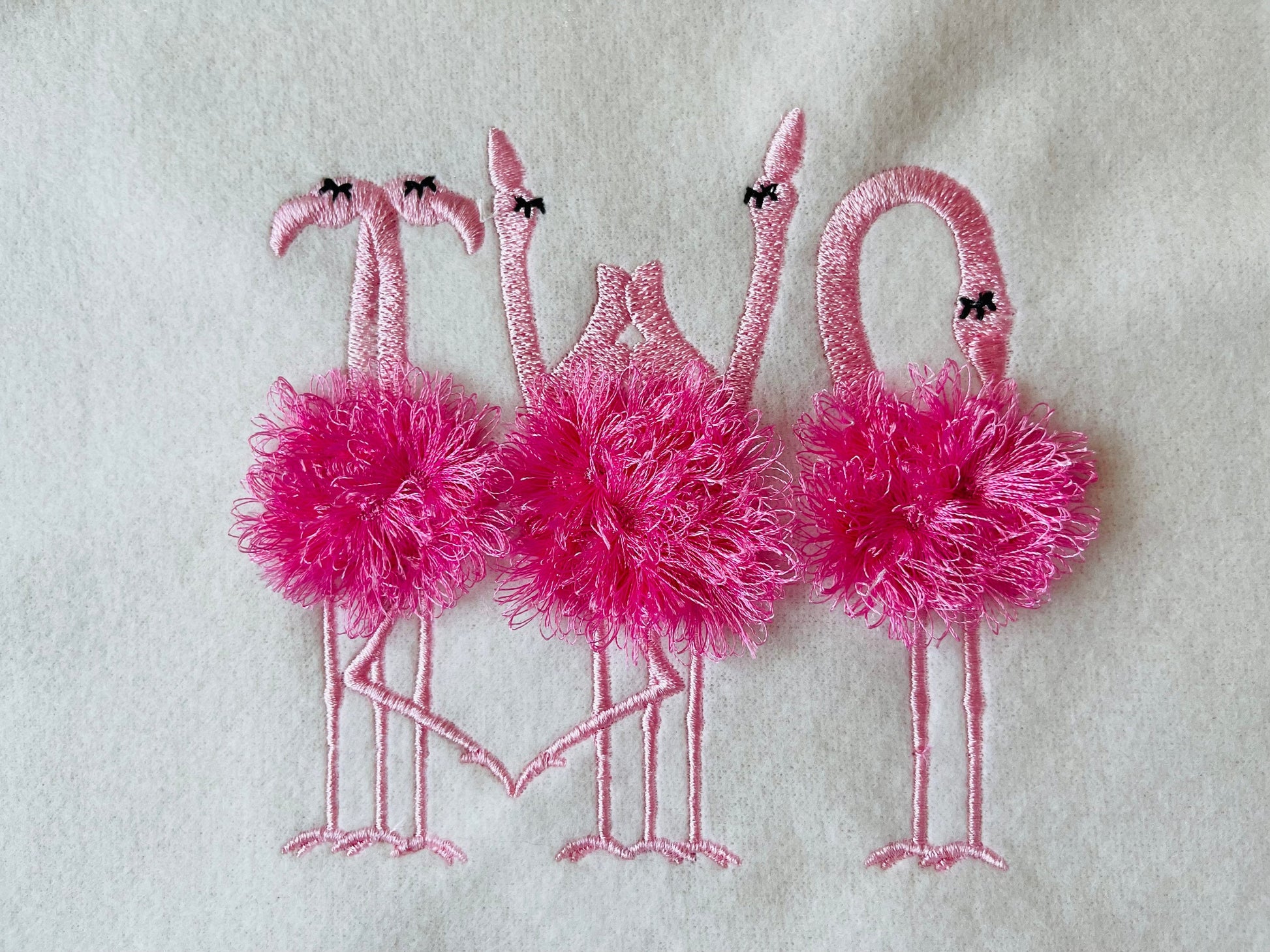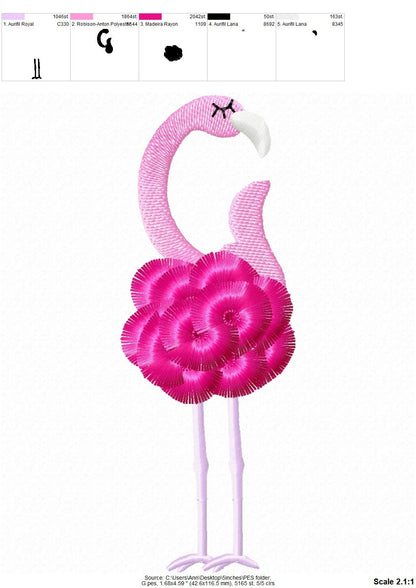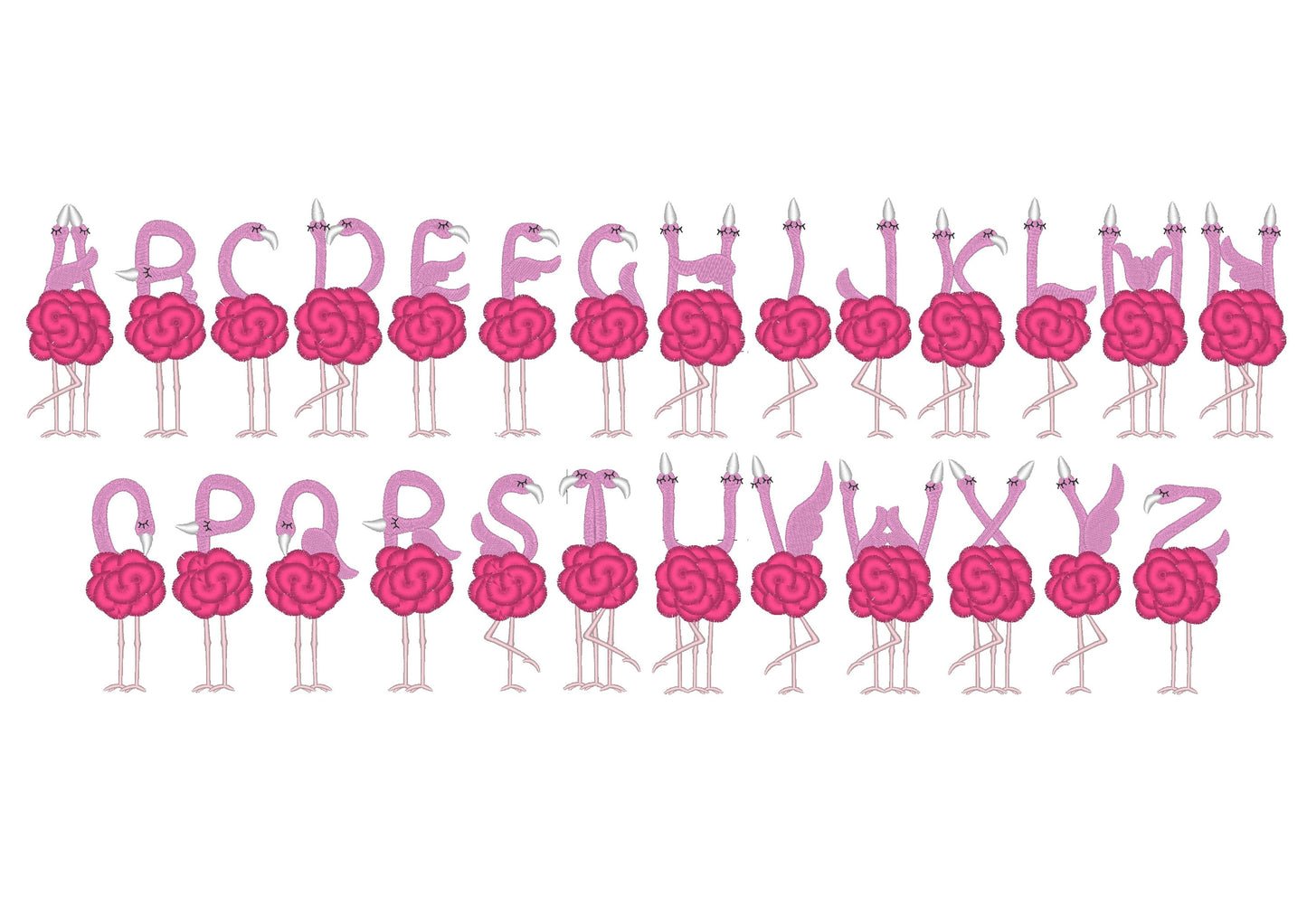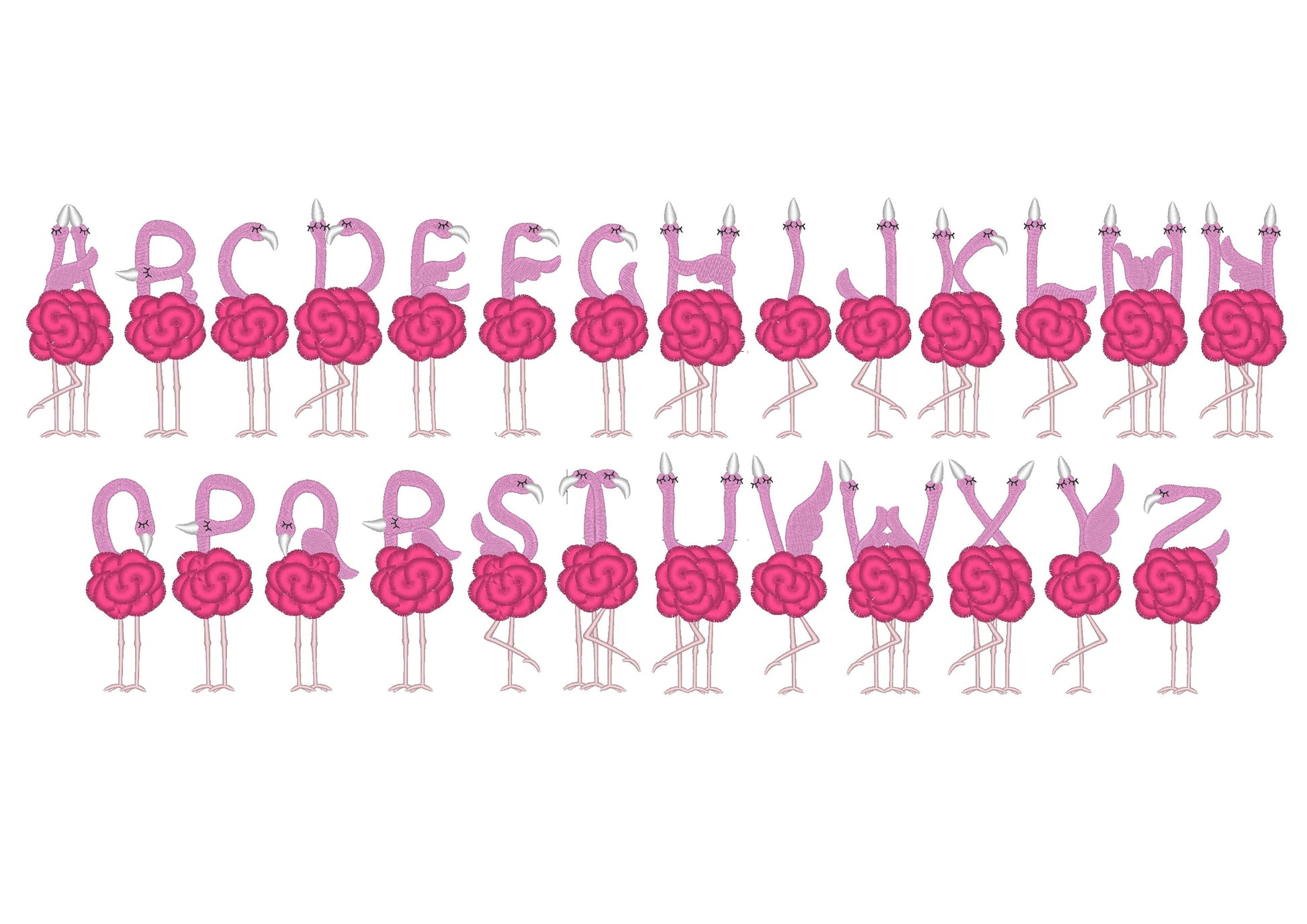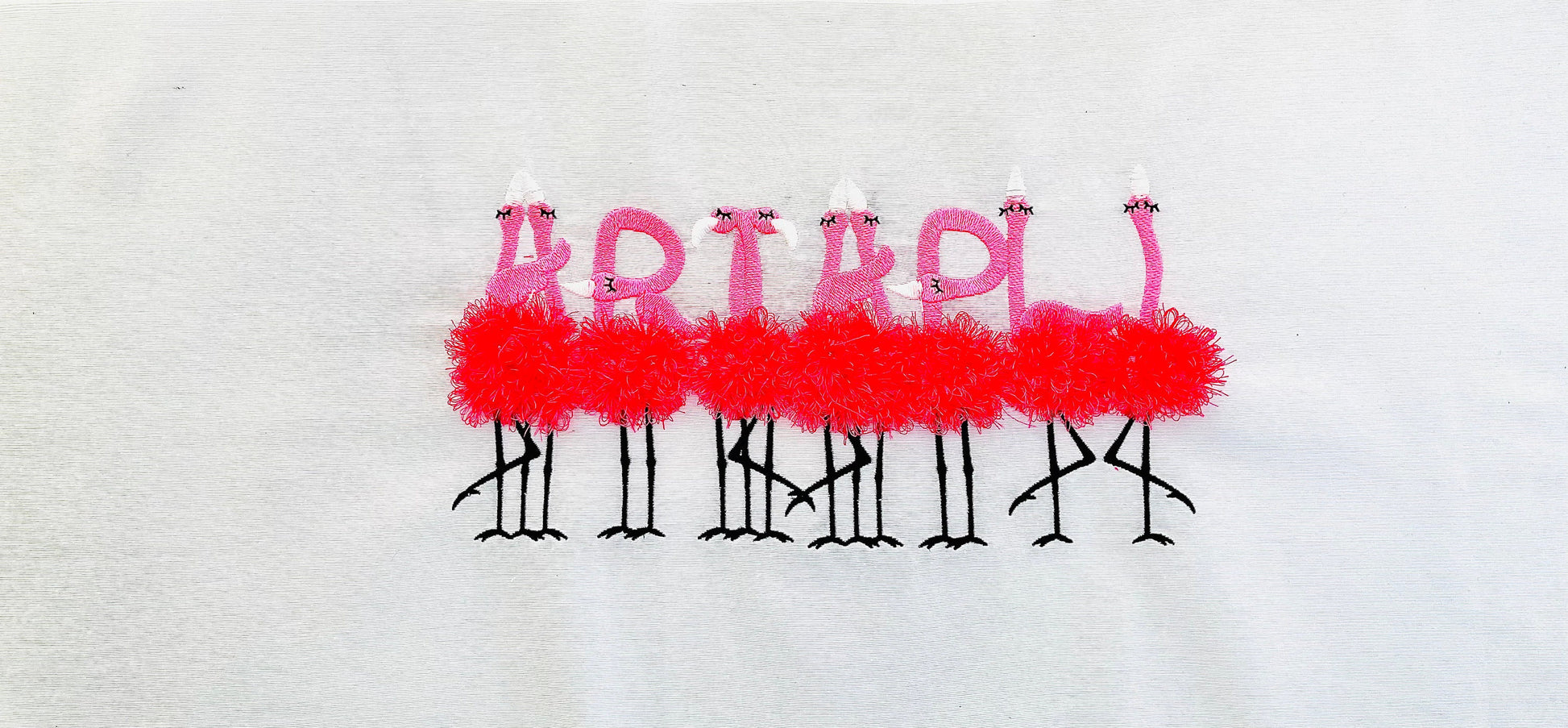
Or click to open the linkA fluffy fringed flamingo alphabet for kids' shirts, summer bags, pillows and Valentine's gifts.
The alphabet has 26 letters, A to Z, in five sizes: 4, 4.5, 5, 5.5 and 6 inches. The fringe is soft and fluffy like chenille.